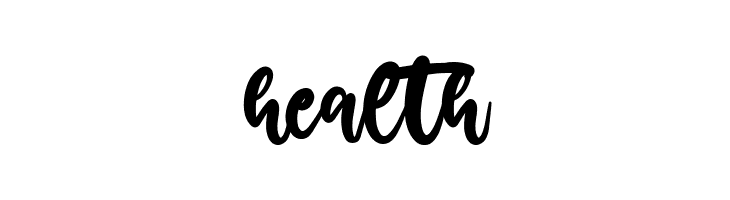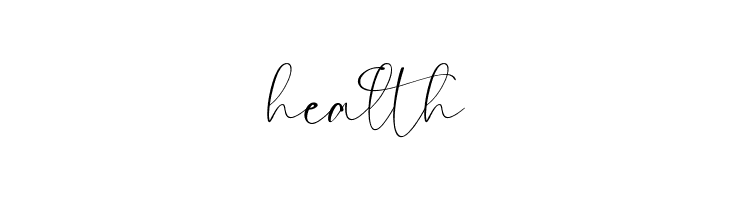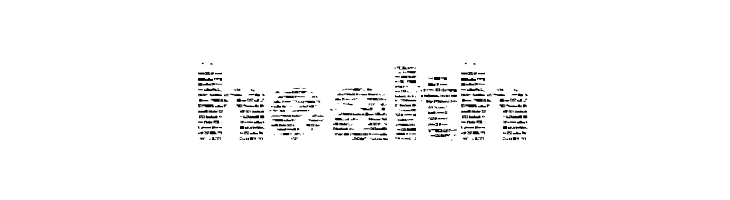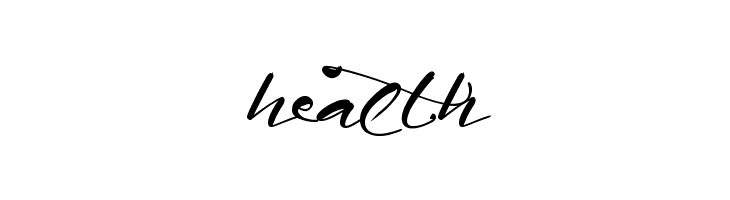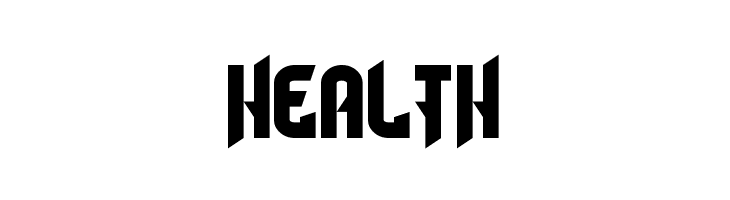
A chaotic, hand-drawn decorative font with intricate, jagged strokes.
A bold, adventurous font with sharp serifs and a distressed appearance, perfect for pirate-themed projects.
A bold, ornate Blackletter-style font with intricate details and a gothic aesthetic.
A bold, eclectic display font with punk and retro influences.
A distressed, hand-drawn font with an edgy, playful style.
A playful, hand-drawn font with rounded, flowing characters.
A bold, playful font with rounded edges and a whimsical style.
Casual handwritten font with rounded edges.
A bold, decorative font with thorny, barbed wire-like accents.
A gothic, thorny font with sharp, decorative elements.
A bold, rounded font with a playful and friendly style.
A bold, geometric font with an industrial, stencil-like appearance.
A bold, playful handwritten font with rounded edges and a casual style.
A modern, italic sans-serif font with clean lines and balanced proportions.
A modern, dotted font with geometric precision and playful design.
A bold, jagged font with a dripping, horror-themed design.
A playful and modern font with smooth, flowing characters and a whimsical touch.
A playful, handwritten-style font with dynamic, autograph-like strokes.
A playful, handwritten font with a dynamic and energetic autograph style.
A modern, geometric sans-serif font with smooth, rounded edges.
A bold, modern sans-serif font with clean, rounded edges and uniform stroke width.
A bold, italic font with smooth curves and a modern, dynamic style.
A sleek, modern italic font with smooth curves and consistent stroke width.
A sleek, modern font with clean lines and a minimalist aesthetic.
A sleek, modern, and light italic font with elegant elongated characters.
An artistic serif font with unique, irregular strokes and elegant flair.
A distinctive font with a hand-drawn, elegant style and slight serifs.